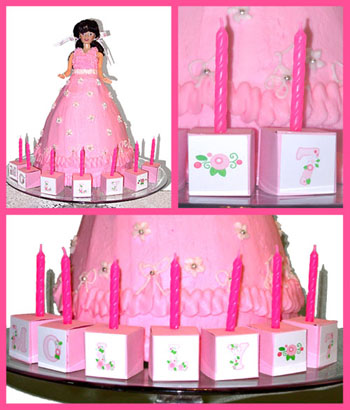
My
two nieces both celebrated birthdays last week, two days
in a row. At their birthday party last weekend they each
got to invite some friends and each had their own birthday
cake. Molly turned 7 and requested a pink doll cake. Lexi
has been playing city league softball for several years
and wanted a softball cake to celebrate turning 12. I volunteered
to make them both and the girls asked if they could help.
So, the night before the party, the kitchen turned into
a bakery and we went to town
For some finishing touches on these birthday masterpieces,
I turned to Lettering
Delights. We needed to find a way
to put candles on Molly's doll cake (every 7 year old has
to blow out candles!) and the softball field needed some
extra touches. I used the perfectly pink Simple
Spring alphabet to decorate some homemade candle holders and the
Softball alphabet was just what we needed for some outfield
banners.
The girls loved the finished products and the cakes were
a big hit at the party too. The extras I created with
help from Lettering
Delights put great finishing touches
on two perfect birthday cakes for two little sweethearts.
| Lettering
Delights alphabets and the Creative
Delights Companion helped me create perfect finishing touches for
my nieces birthday cakes. |
| Candle Holders |
- I started by cutting, folding and gluing together 7 -
1” square boxes (one for each candle) from pink cardstock.
(I used my own pattern but several die cut boxes may be
available at your local scrapbook store.) I punched a small
hold, just large enough to snugly fit a birthday candle,
in the top of each box.
- In the Creative
Delights Companion I spelled out Molly's
name and used the number 7, sizing each to about 3/4”,
in the Simple
Spring alphabet design. In many Lettering
Delights alphabets, the upper and lower-case letters have
different designs or colors. For Molly's pink cake, I used
only the pink include upper-case letters in Simple
Spring.
- To decorate the seventh box, I used an individual flower
from clip art in the Simple
Spring Journaling Delights.
After printing everything I needed from the Creative
Delights Companion I trimmed and adhered each letter, the number
and flower to the side of a box.
- The boxes fit neatly along
the edge of the cake plate and made perfect, personalized
candle holders.
| Outfield Banners |
-
Using the alphabet Softball in the
Creative
Delights Companion, I printed a simple '12'
on white cardstock and cut it to the shape of a pennant-style
banner, mounted it on red cardstock and hot-glued it
to a wooden skewer. The banner with Lexi's name was
made with the font LD
Carefree Black (72 point), cut,
mounted and glued to match the #12 banner.